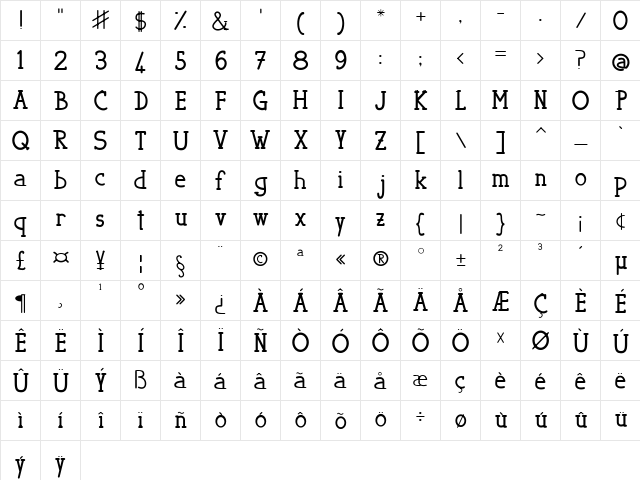
Bellerophon Regular
| Foundry | Marco Ballar |
| Designer | Marco Ballar |
Design Context for Bellerophon Typeface
Bellerophon offers clean, dependable letterforms without strong stylistic allegiance, making it a practical choice for designers who need flexibility.